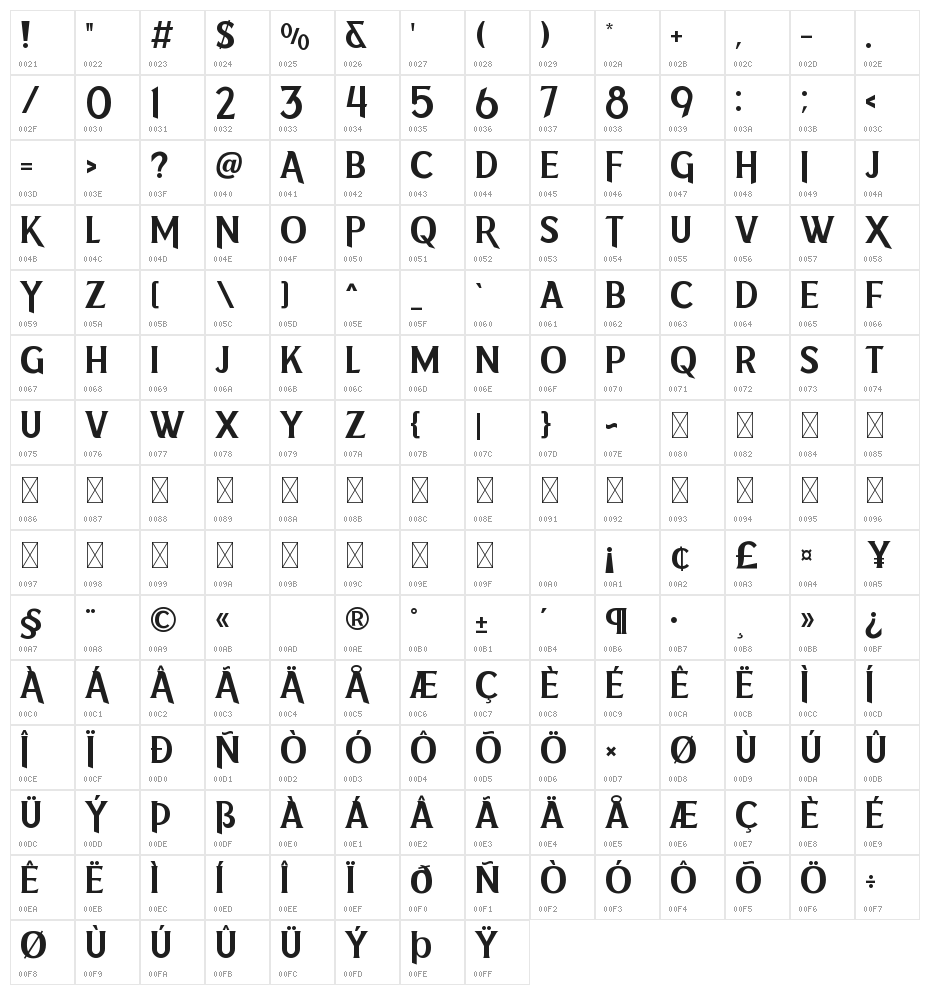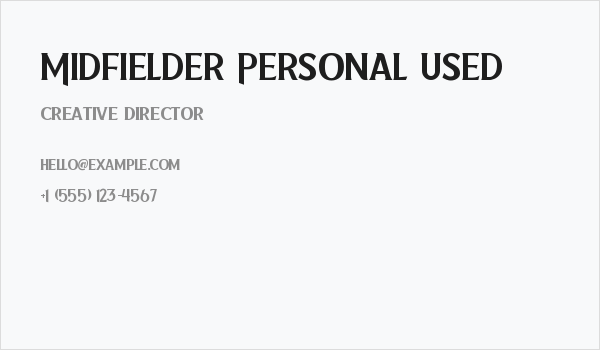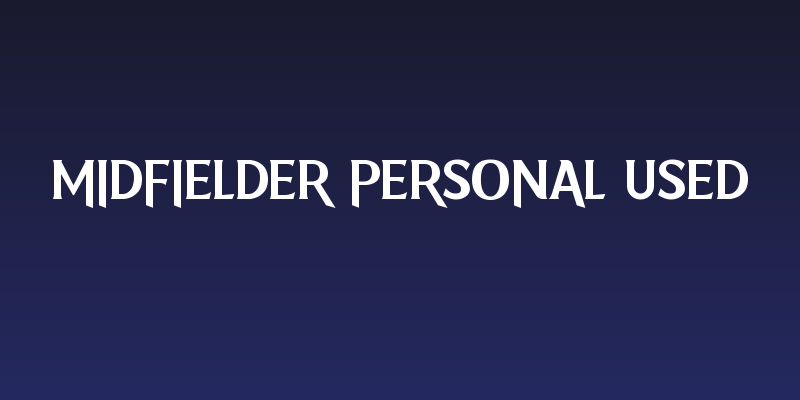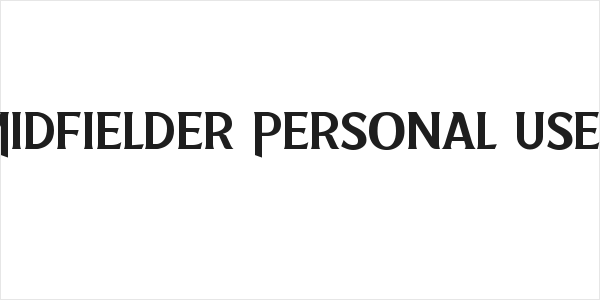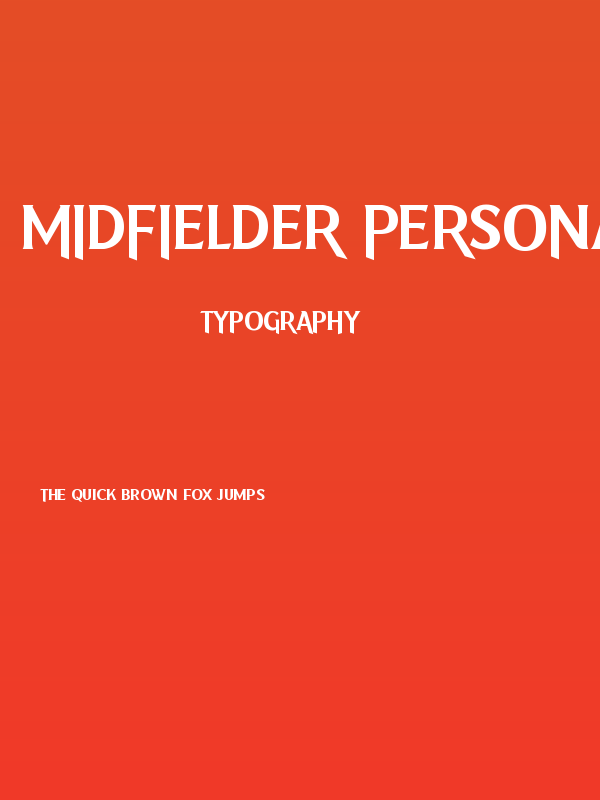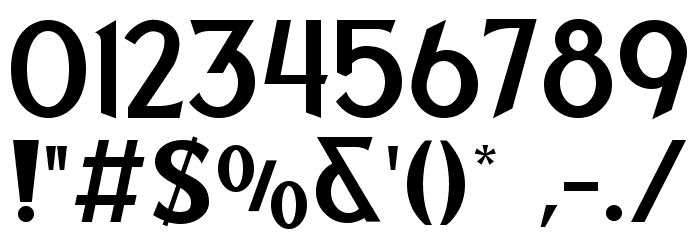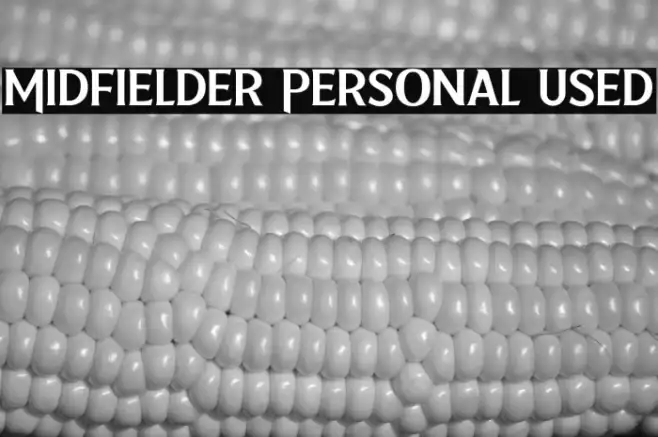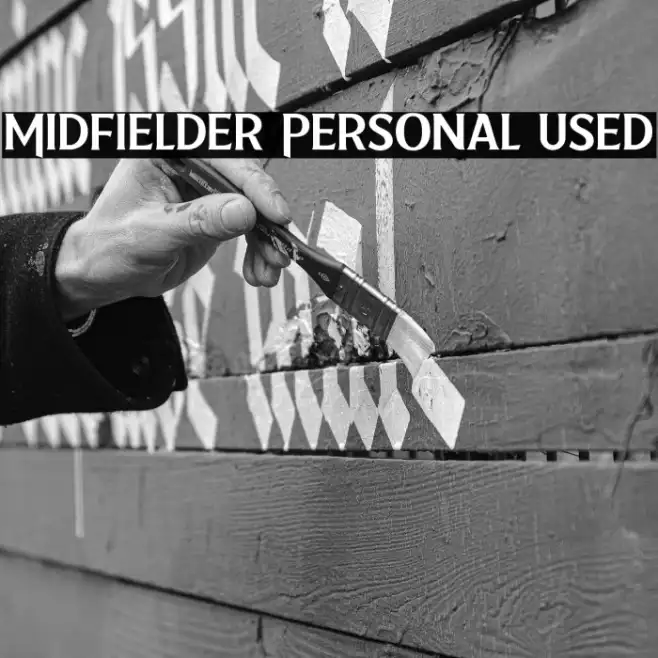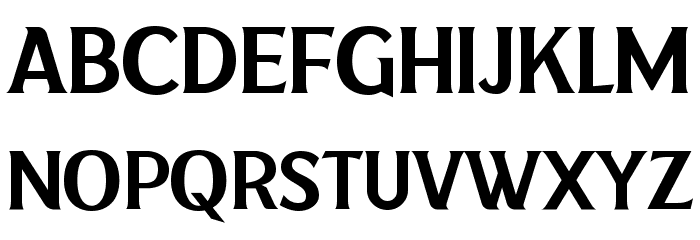
Midfielder Personal Used Font
Midfielder Personal Used Description
This font features a bold and dynamic style with sharp, angular serifs that give it a distinctive and assertive appearance. The uppercase letters are strong and commanding, while the lowercase letters maintain a consistent and cohesive look. The numerals are clear and well-defined, making them easily readable. Special characters are designed with the same boldness, ensuring uniformity across all glyphs. The overall design is modern yet retains a classic touch, making it versatile for various applications.